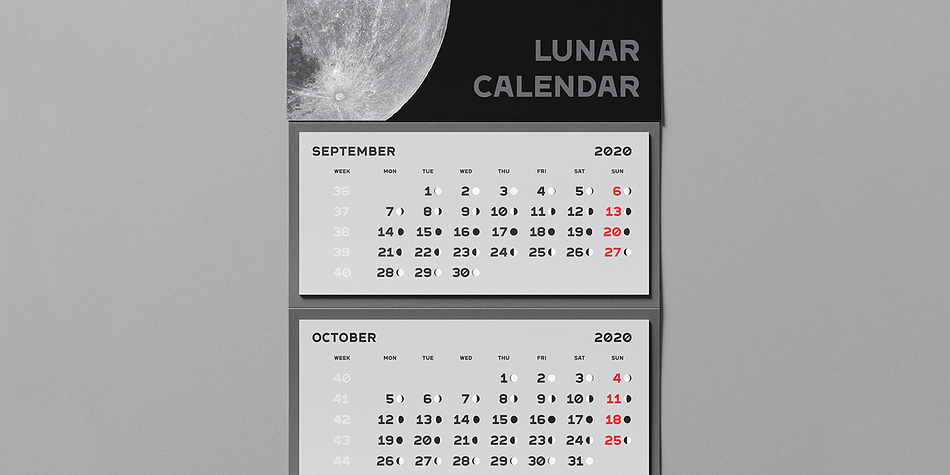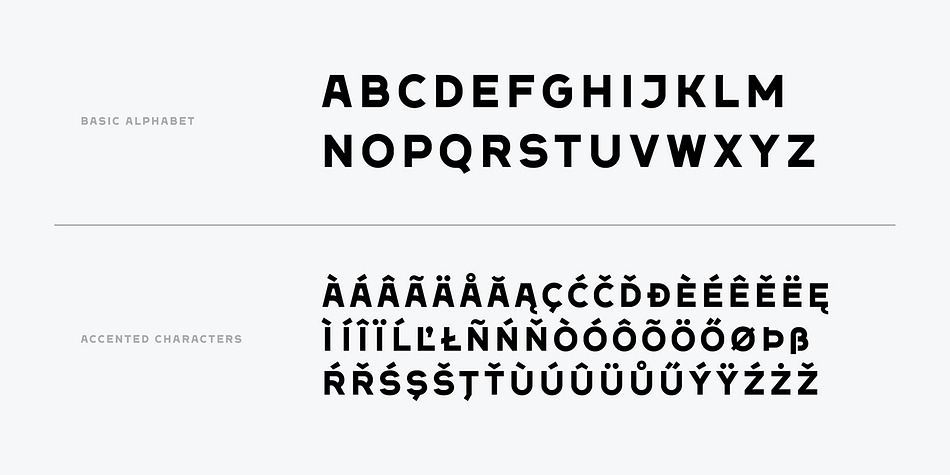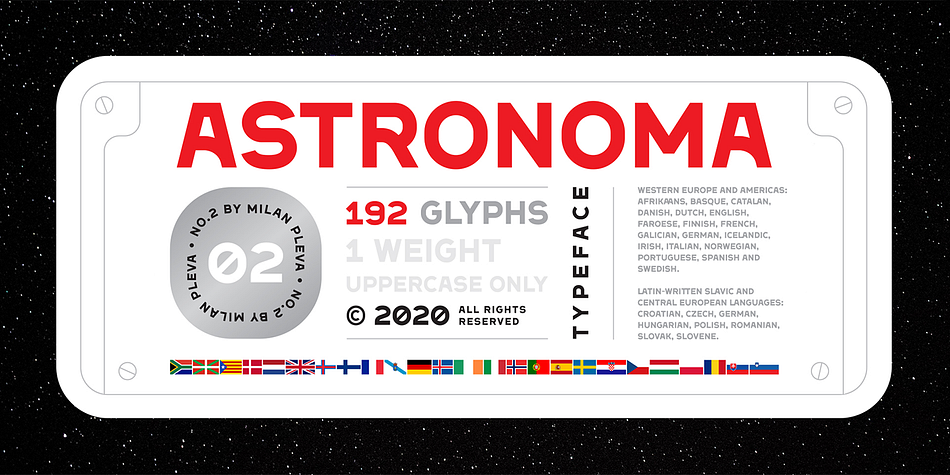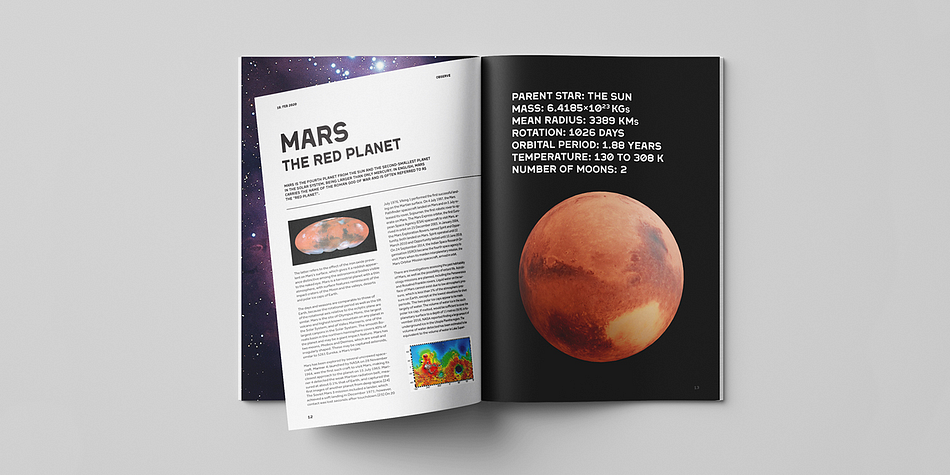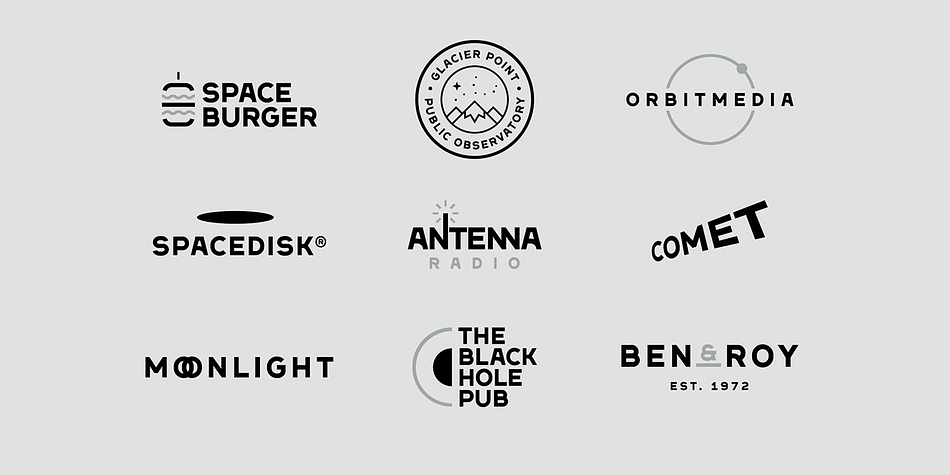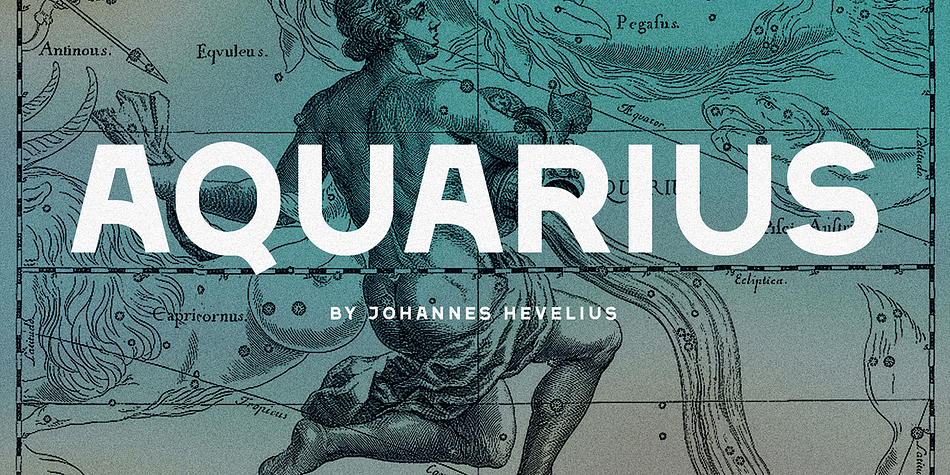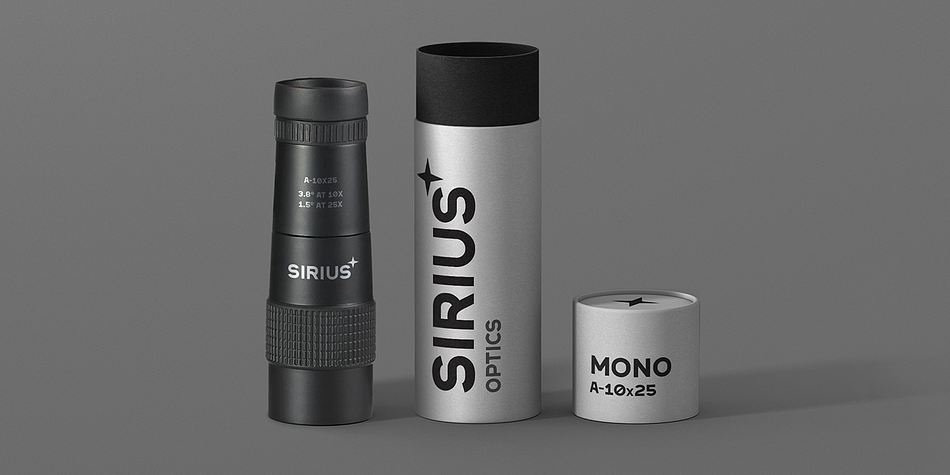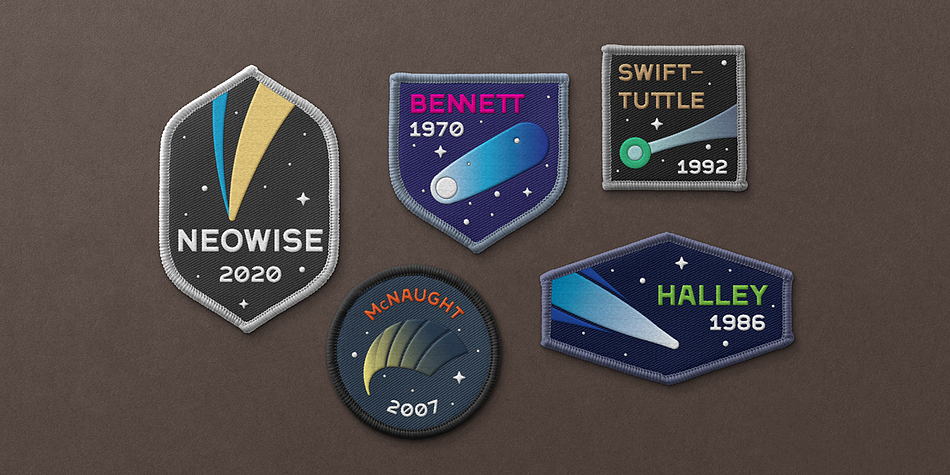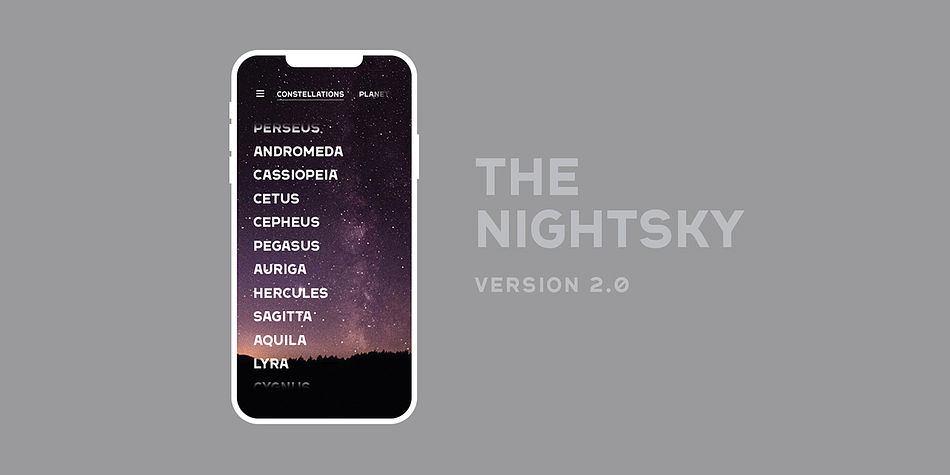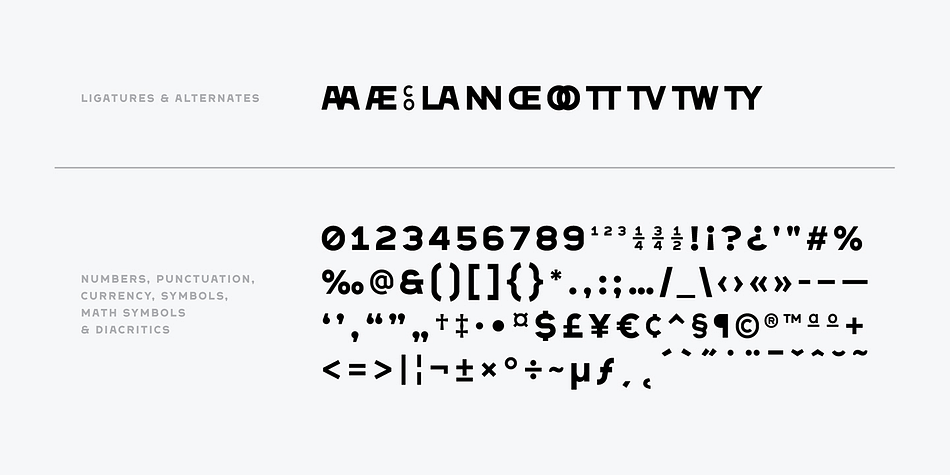
Astronoma is a display sans font published by Milan Pleva.
Astronoma is a clean modern and geometric sans serif typeface inspired by industrial design and technical fonts. Includes OpenType features & supports many languages. Astronoma is ideal for headlines, headers, logos, labels, packaging, presentations, magazines, invitations, etc.